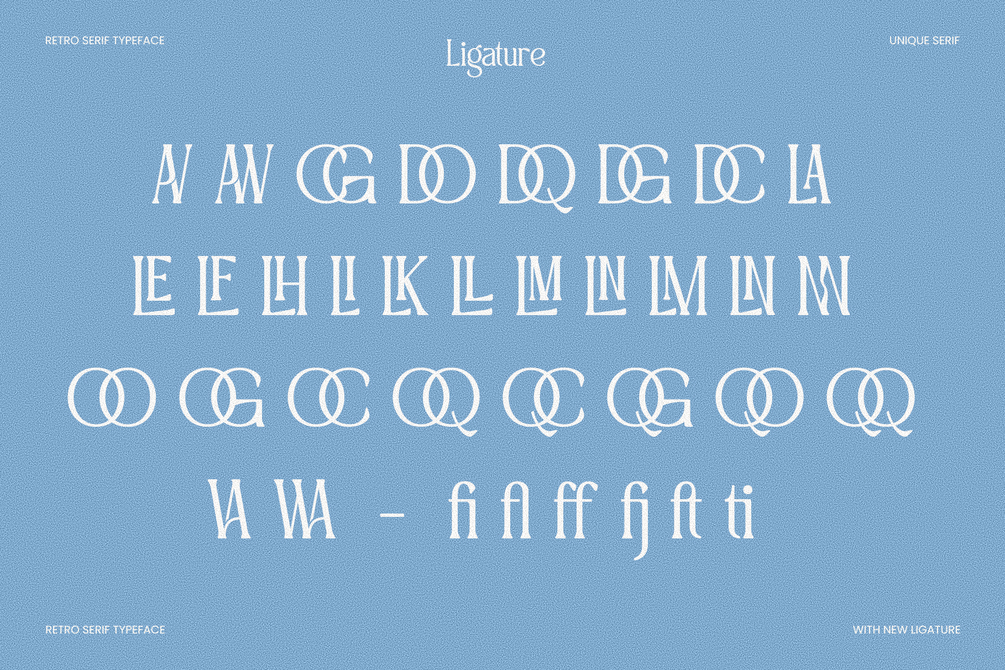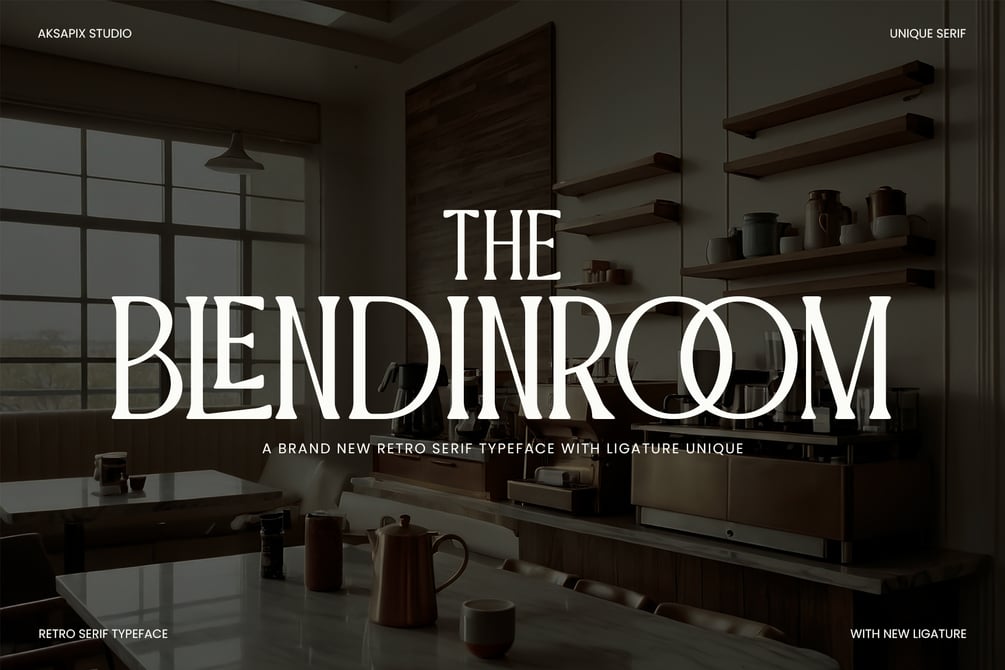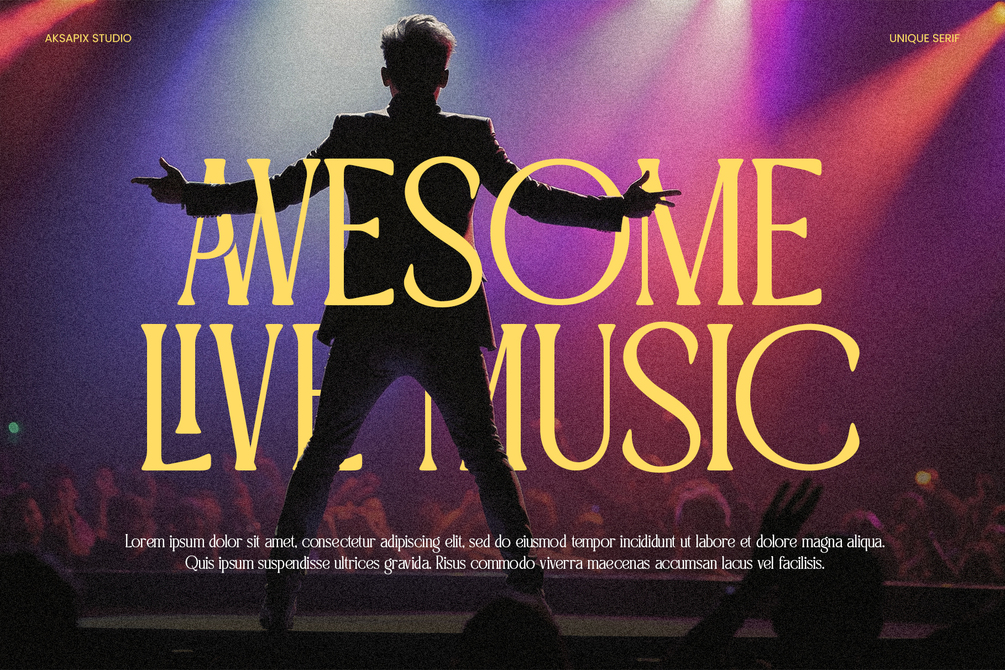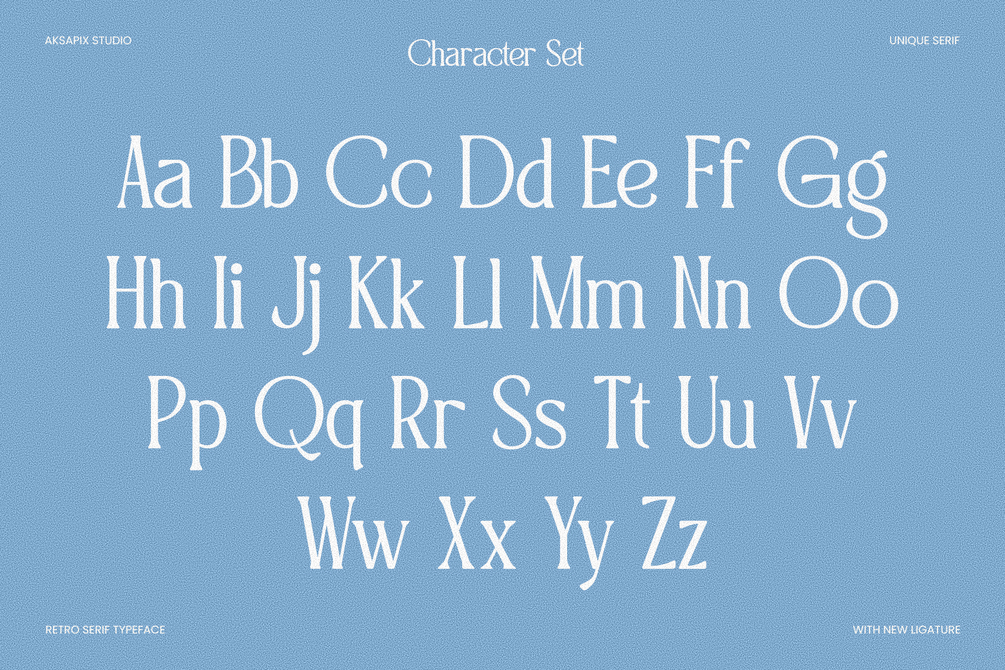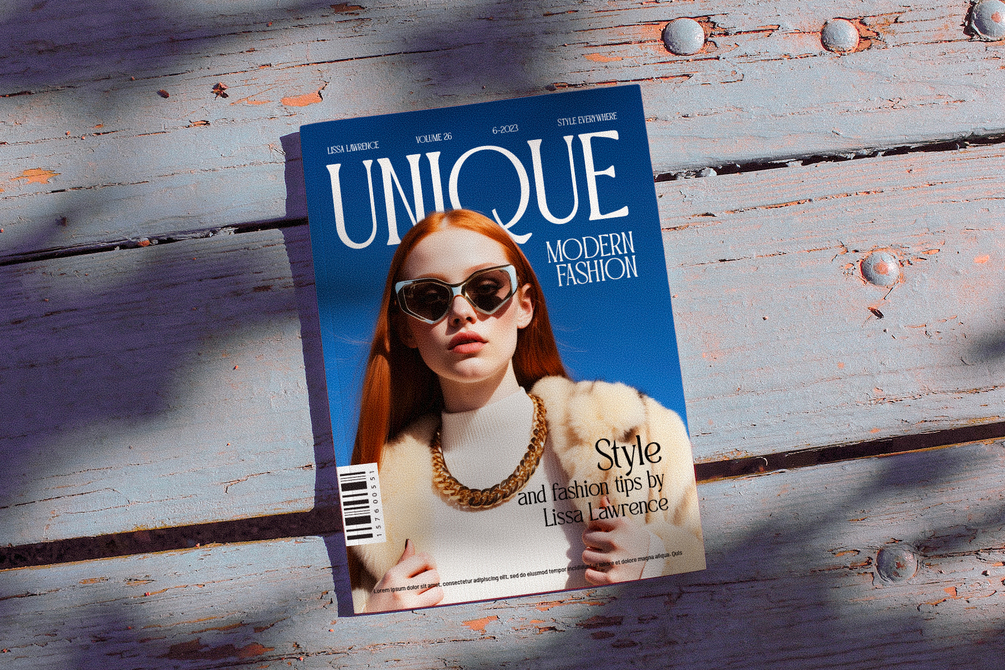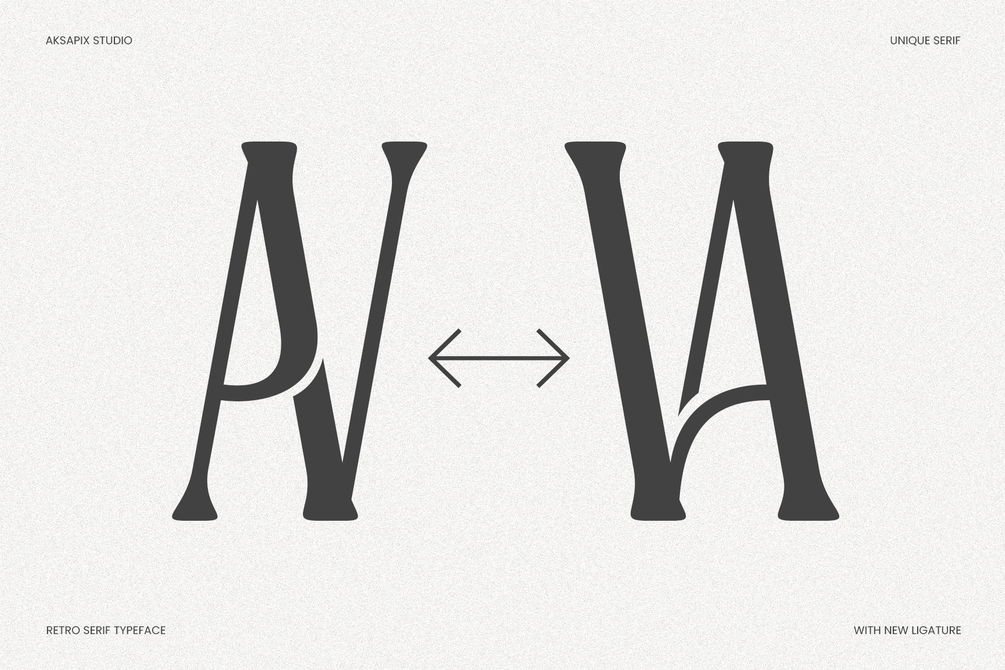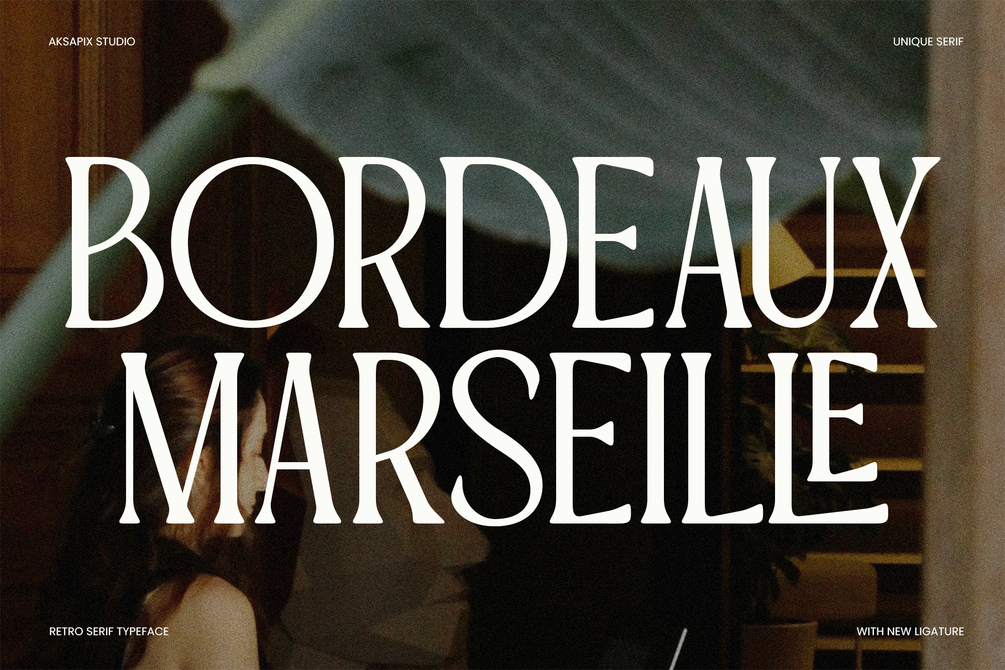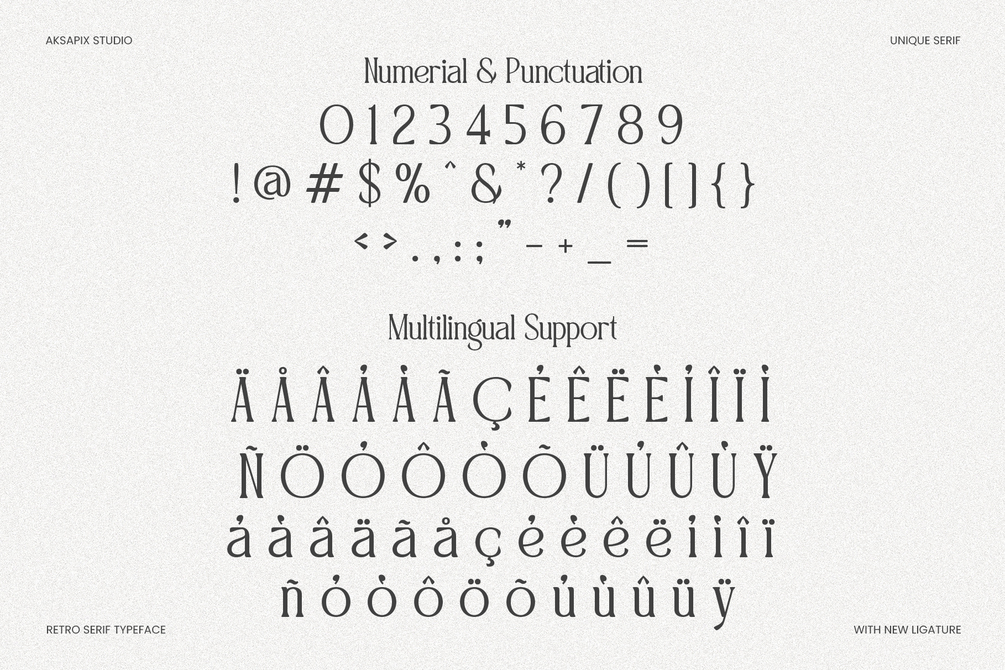
The Blendinroom - Retro Serif Typeface
Introducing The Blendinroom - A Brand New Retro Typeface, a distinctive and charming font designed to infuse your projects with a touch of retro flair. This typeface features a complete set of uppercase and lowercase letters, punctuation, unique ligatures, and multilingual support. Perfect for creating eye-catching and nostalgic designs, The Blendinroom offers a versatile and stylish solution for all your creative needs.
Features:
- Uppercase & Lowercase: Full range of letters for diverse typography.
- Punctuation: Comprehensive set for complete and polished designs.
- Unique Ligatures: Special character combinations for added style.
- Multilingual Support: Compatibility with various languages and locales.
Perfect For:
- Elegant Vintage Branding
- Music Posters
- Wedding Invitations
- Magazine Cover
- Fashion Branding
Add a timeless touch to your designs with The Blendinroom - A Brand New Retro Typeface. Whether you’re working on Elegant Vintage Branding, Music Posters, Magazine Cover, etc, this font will bring your projects to life with its unique and stylish character.